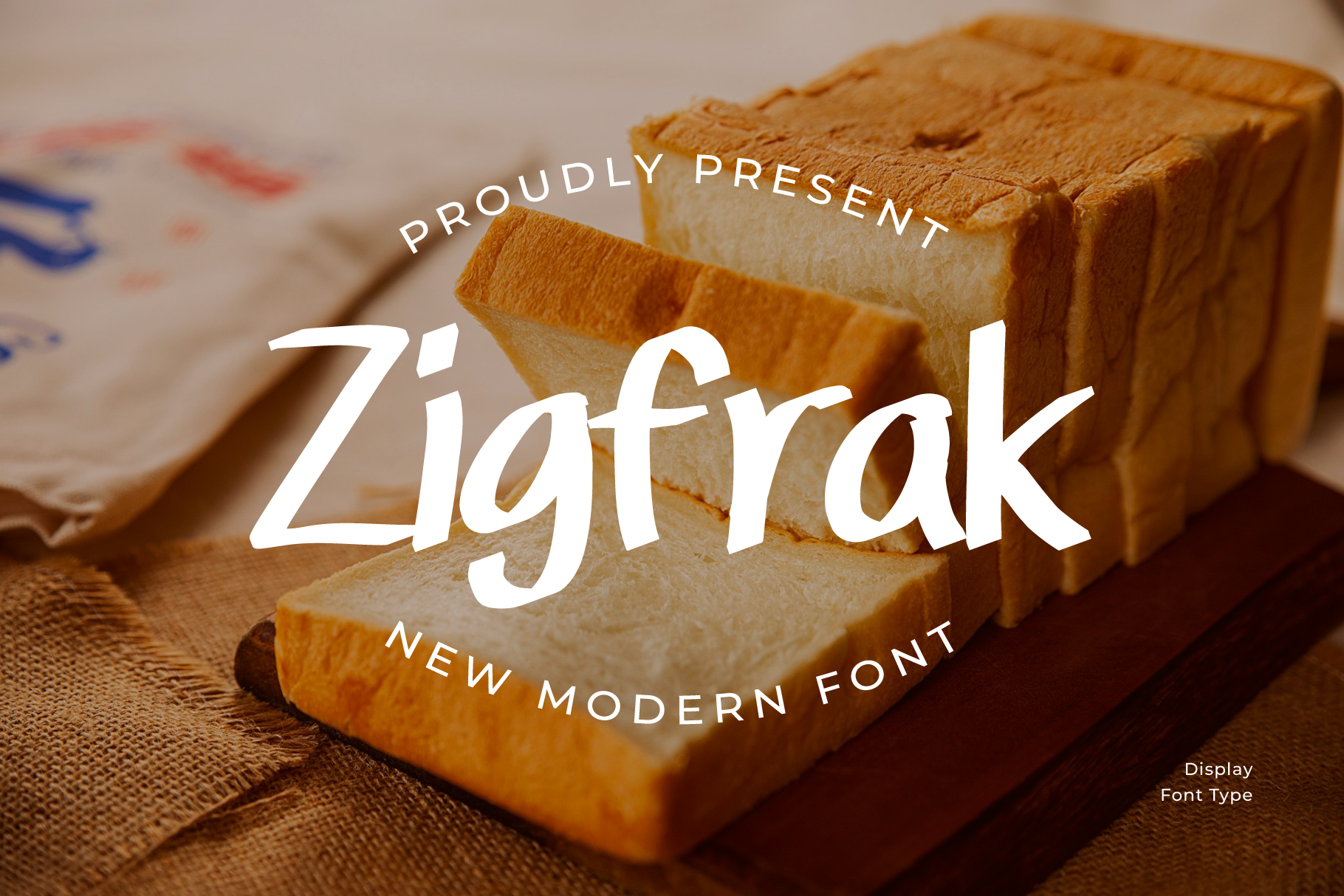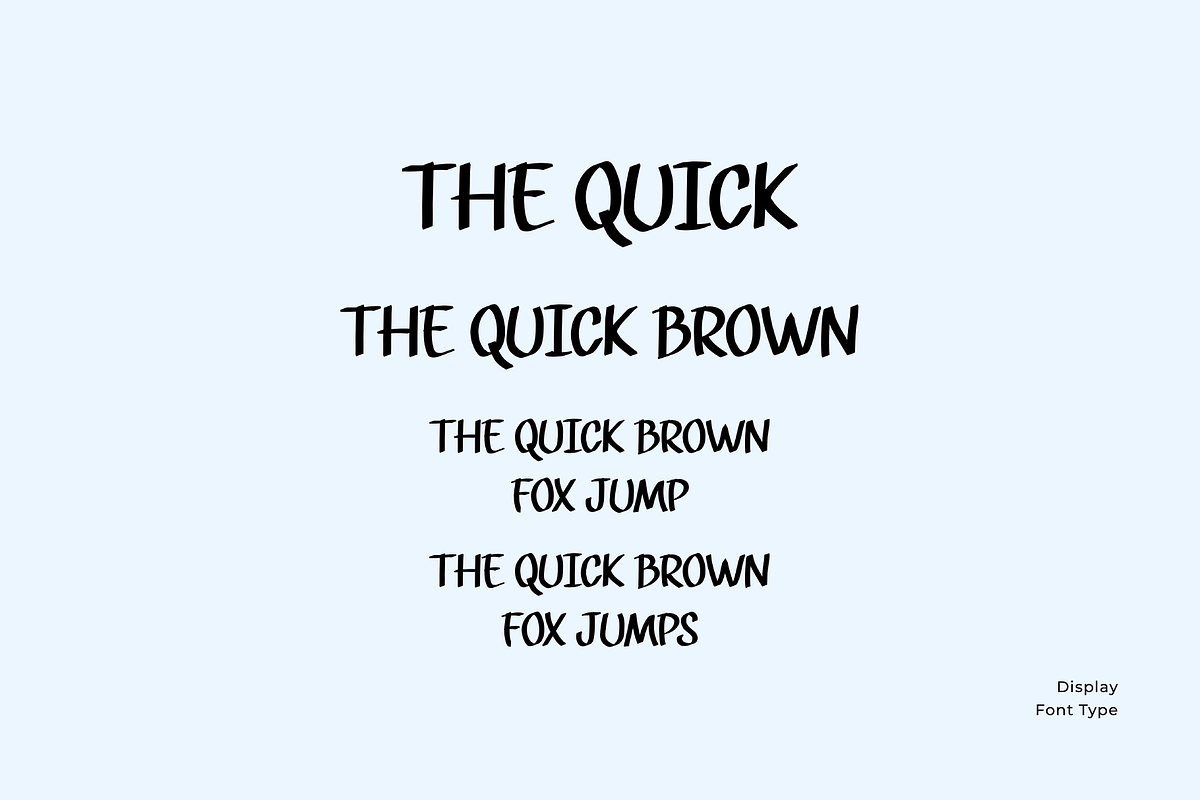
Display font Zigfrak sans serif
Zigfrak is a new addition to the world of typography. This font is casual, friendly, and perfect for any kind of creative endeavor you may be using.
Contains all capital letters, numbers, and basic punctuation.